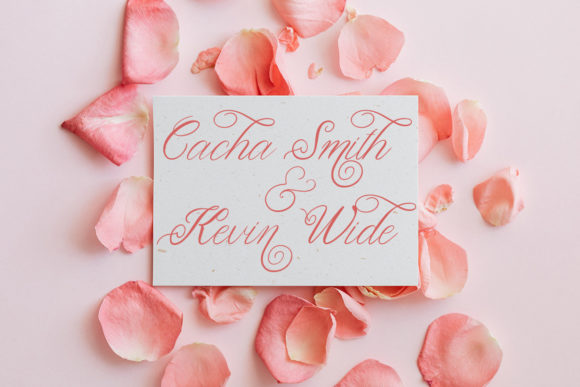
Letter Calligraphy Font
Letter Calligraphy is a classic script font with an elegant style, with alternate variations that are different from other script fonts. It is the best choice for creating eye catching logos, branding and quotes. Every letter has a unique and beautiful touch, which will make your design come alive!